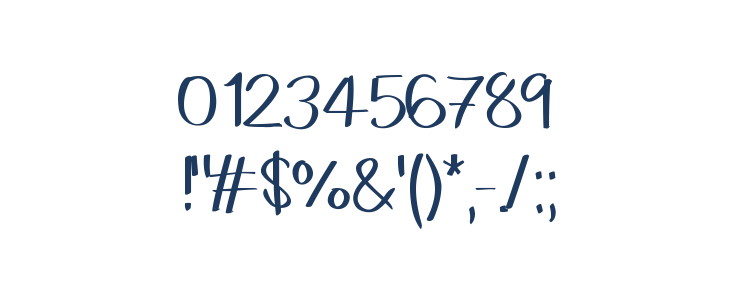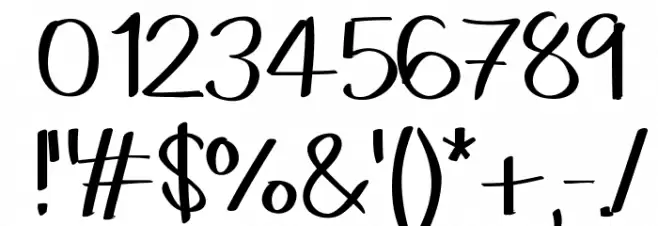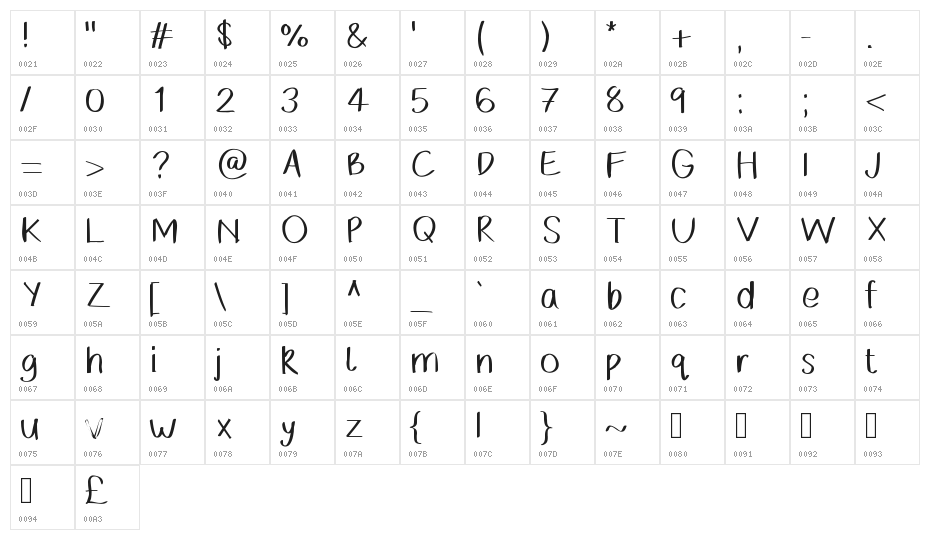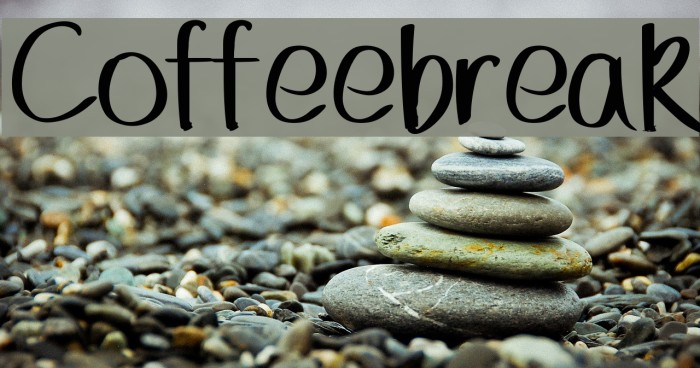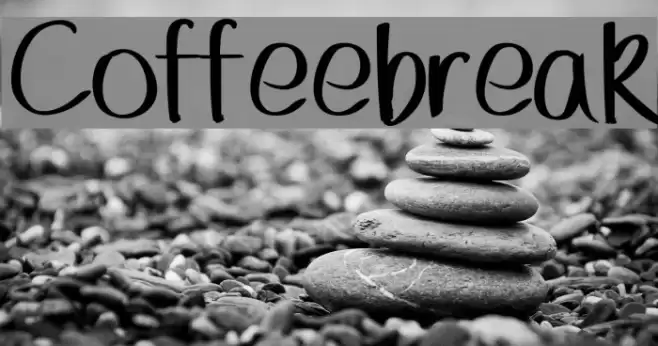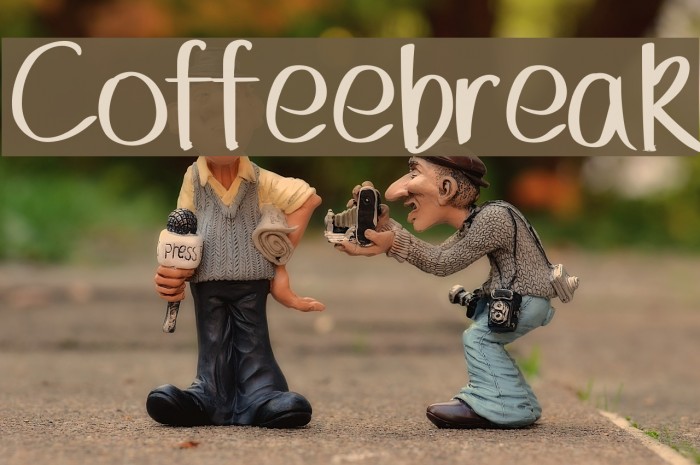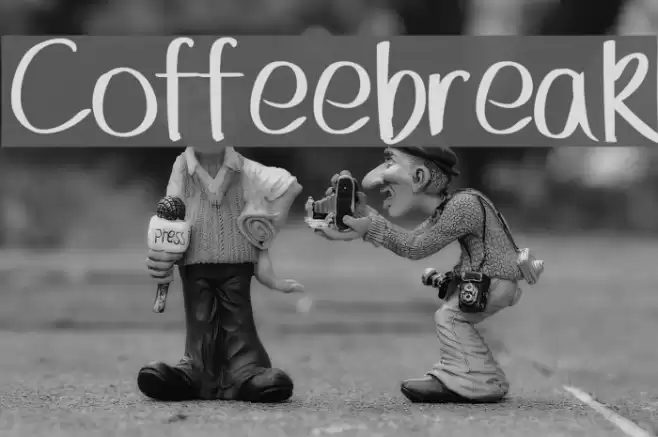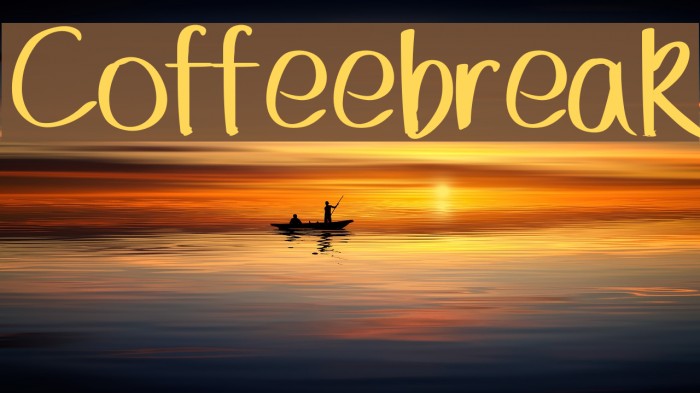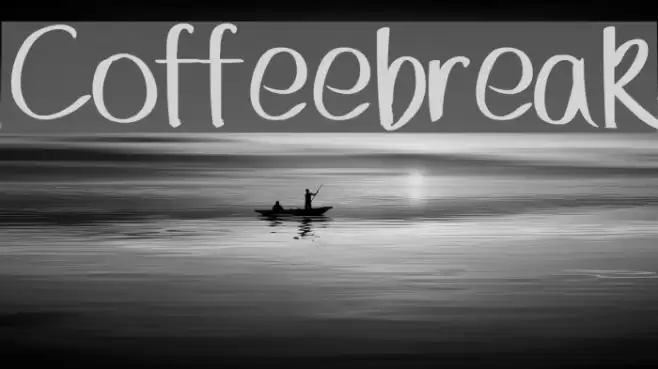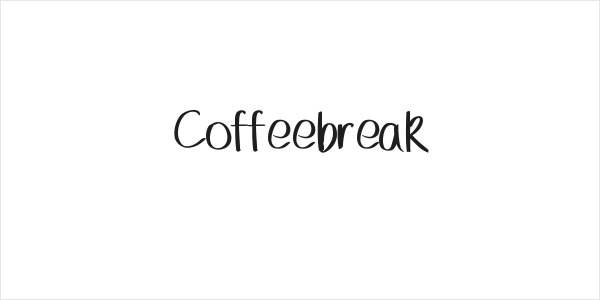
Coffeebreak Font
Coffeebreak Description
This font exhibits a playful and casual handwritten style, characterized by its smooth, flowing curves and slightly irregular letterforms. The uppercase letters are bold and confident, while the lowercase letters maintain a consistent rhythm, adding to the font's approachable and friendly appearance. The numerals are clear and easy to read, matching the overall aesthetic. Special characters are creatively integrated, maintaining the font's cohesive look. The strokes are moderately thick, providing a balanced contrast that enhances legibility without sacrificing style. This font's informal yet polished design makes it versatile for various creative applications.